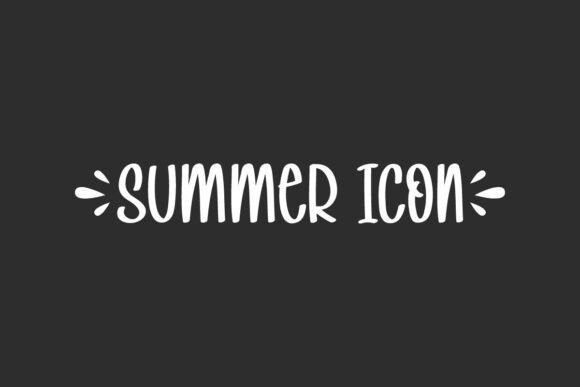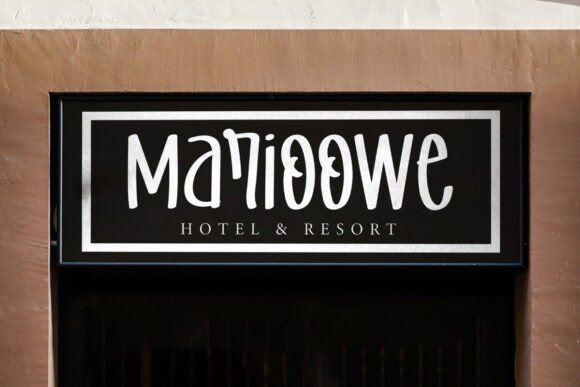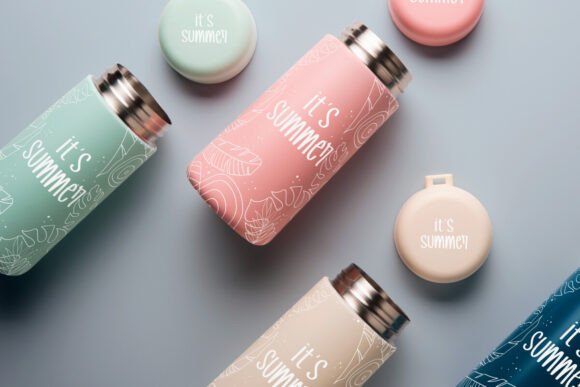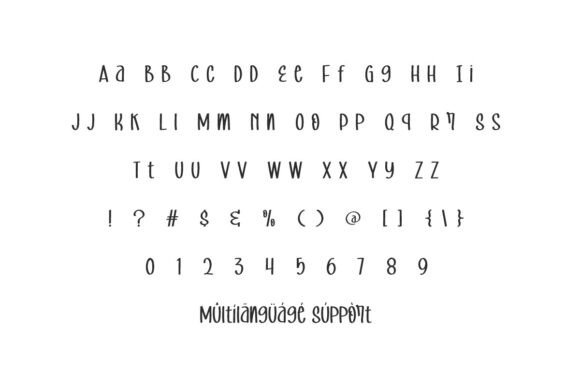
Summer Icon Font
About the Summer Icon Font
Experience the unique personality of Summer Icon Font, a font designed for impact. The Summer Icon Font is a cheerful, summer-themed handwriting font. At first glance, it resembles regular handwriting, but it actually has its own unique character. This font is perfect for a wide range of industries, including advertising, authors and writers, beauty products, event or wedding planning, fashion, florists, handicrafts, homeware, printing, publishing, and more!